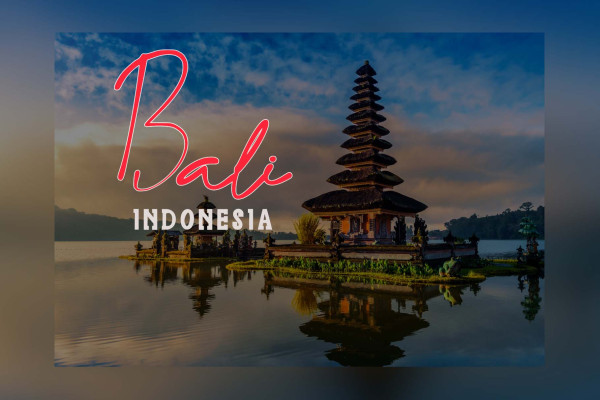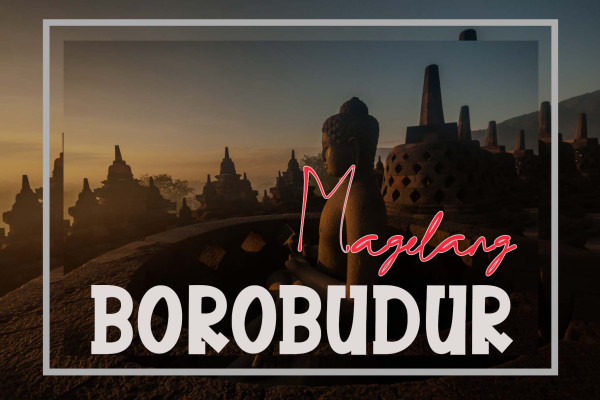
Mandalika Indonesia Font
Mandalika Indonesia Font is an elegant and beautiful duo font. This font is equipped with uppercase, lowercase, ligatures, numerals, punctuation, and multilingual support. Very suitable for business branding, social media, logos, banners, posters, branding, stickers, summer, graduation, and much more!